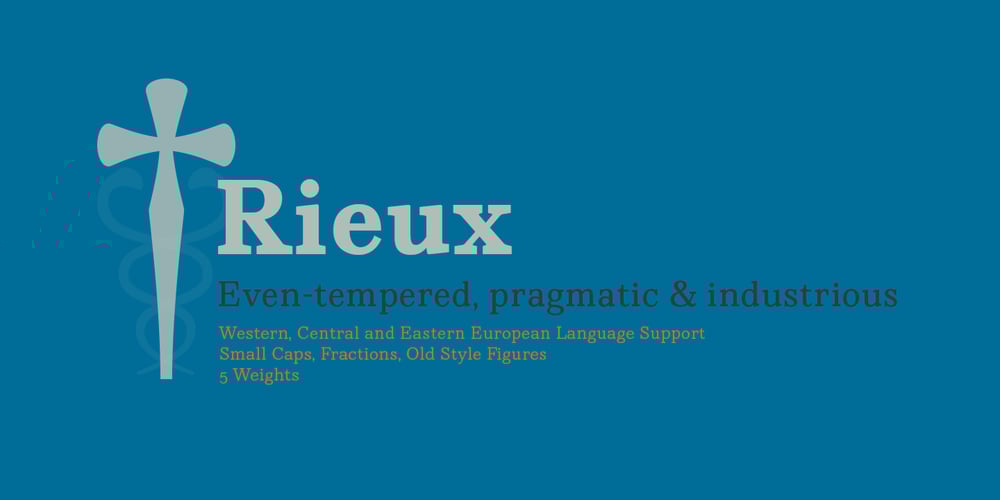
Rieux Font Family was designed by Neil Patel and published by Tetradtype. Rieux contains 5 styles and family package options. Named after the steadfast doctor from Albert Camus’ The Plague, Rieux is an even-tempered slab-serif that is confident without being cocky and approachable without being casual. The aesthetic of Rieux is inspired by the industrial age. While the design is not directly derived from typefaces of that era, the shapes of letter-forms are informed by images of over-sized steel machines and the monolithic brick buildings that housed them. Rieux is available in 5 weights and is ideal for uncatalogued, magazines, short publications and company collateral. In addition to supporting Western, Central and Eastern European languages, Rieux includes an array of OpenType features to provide a range of typographic options.